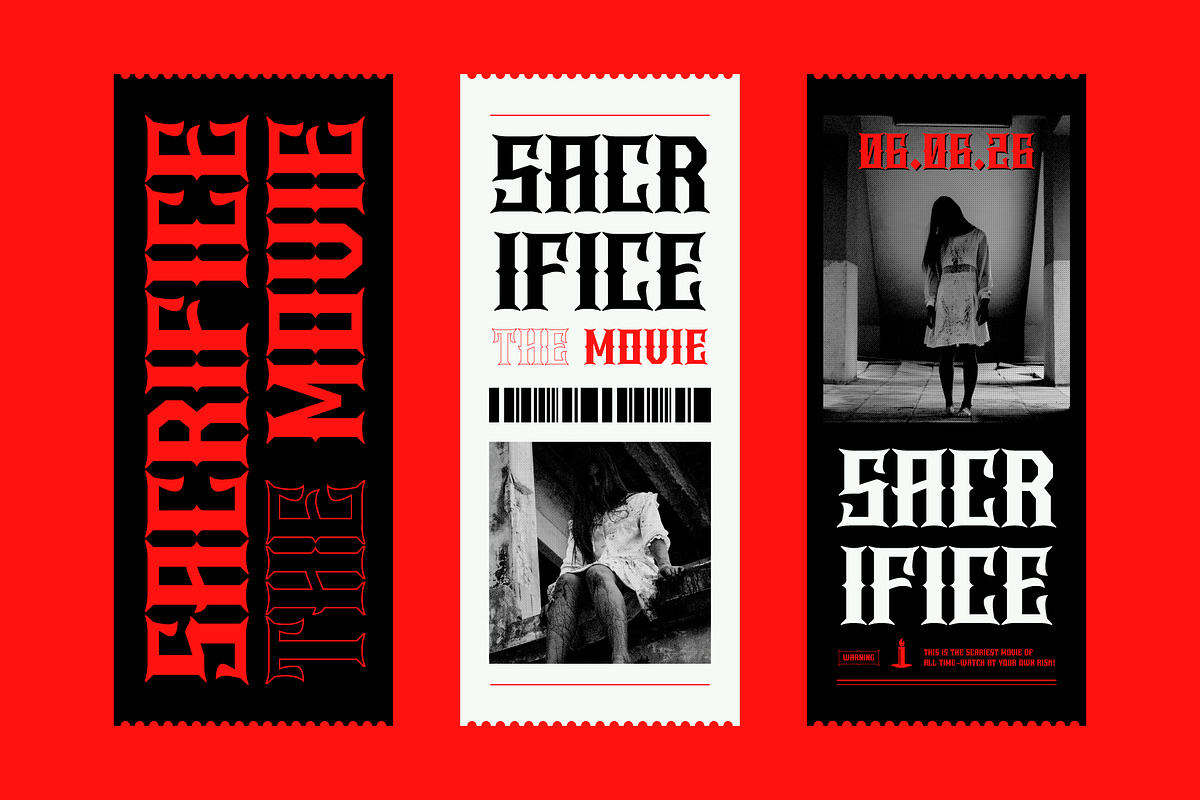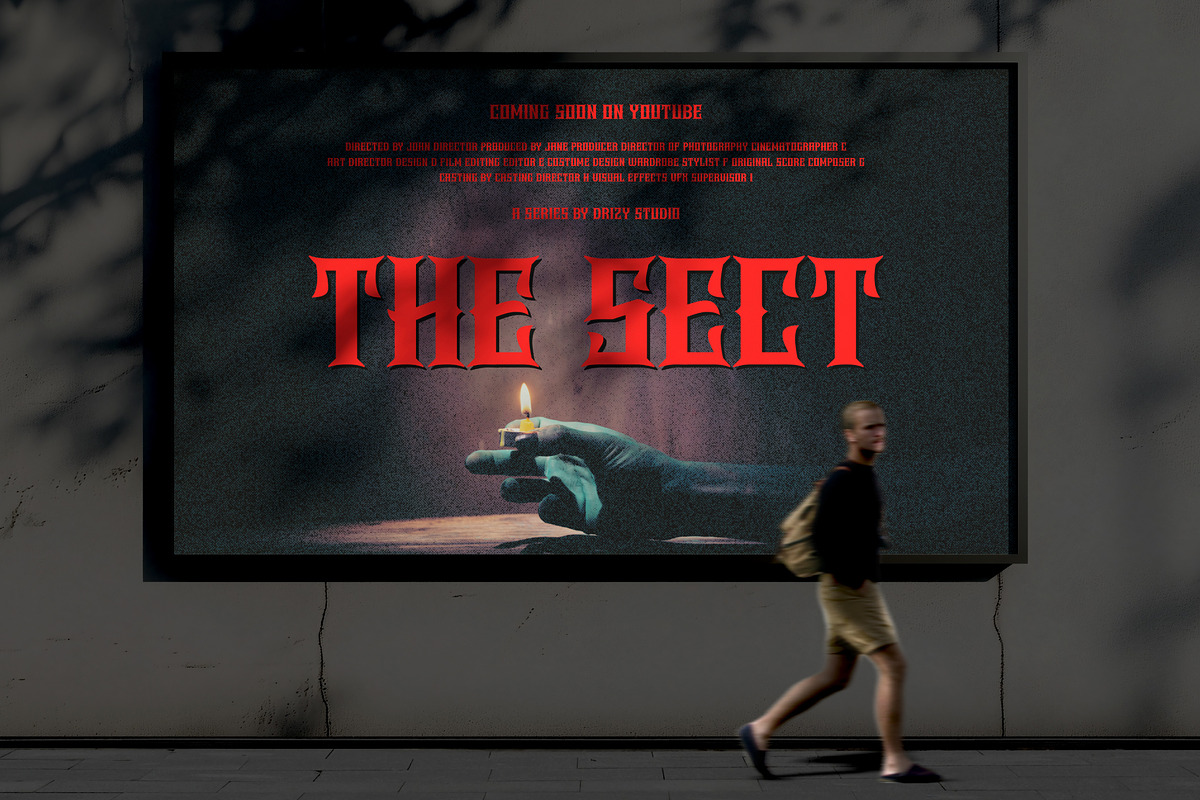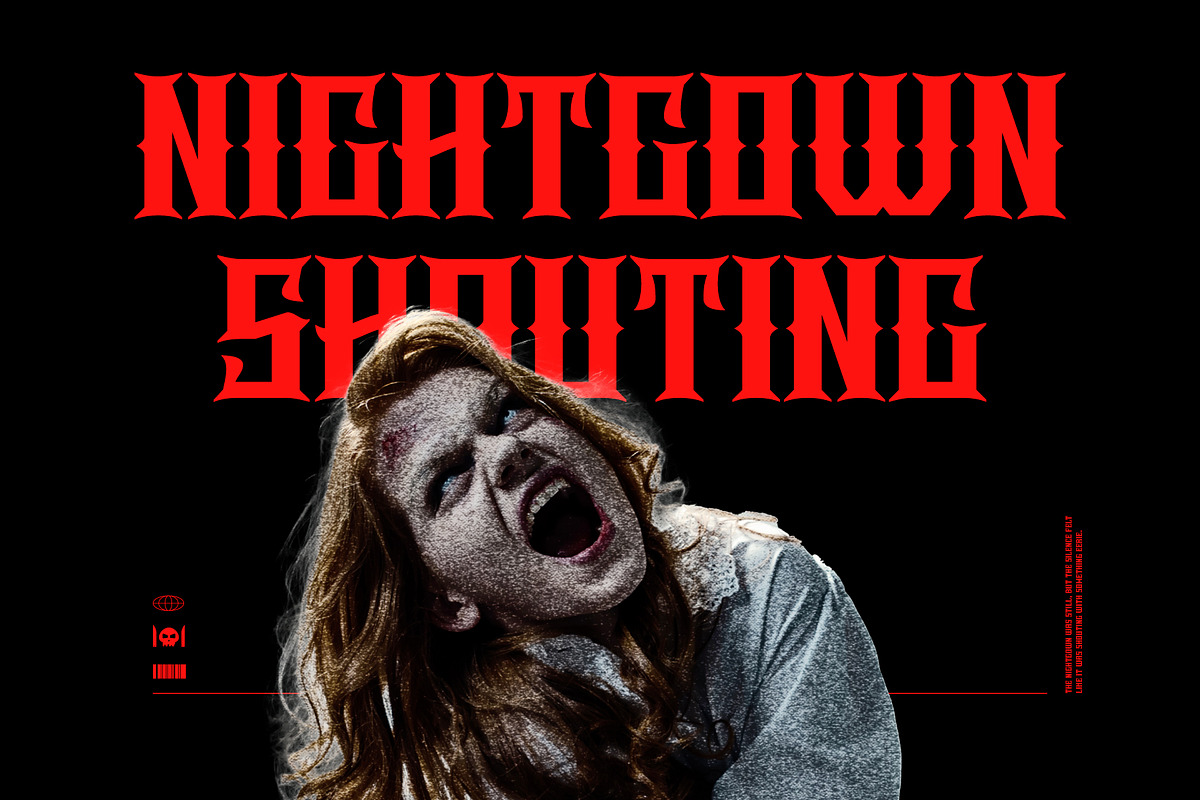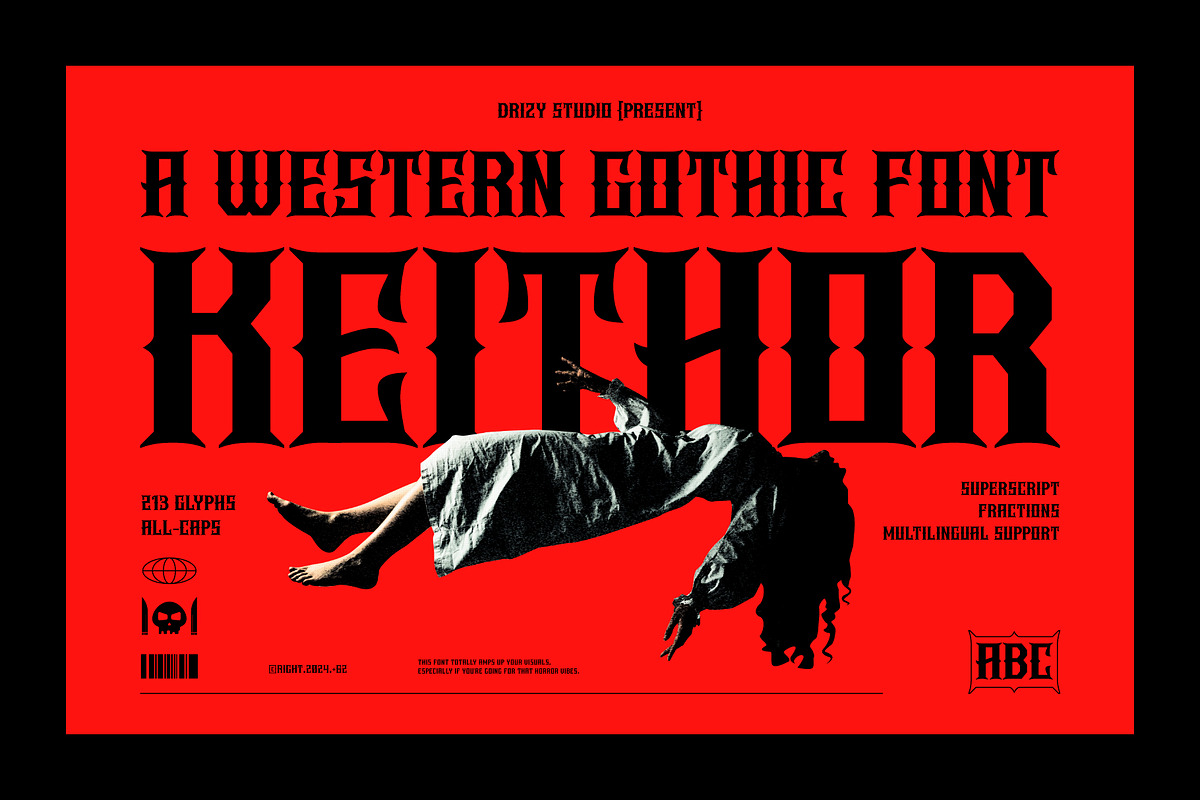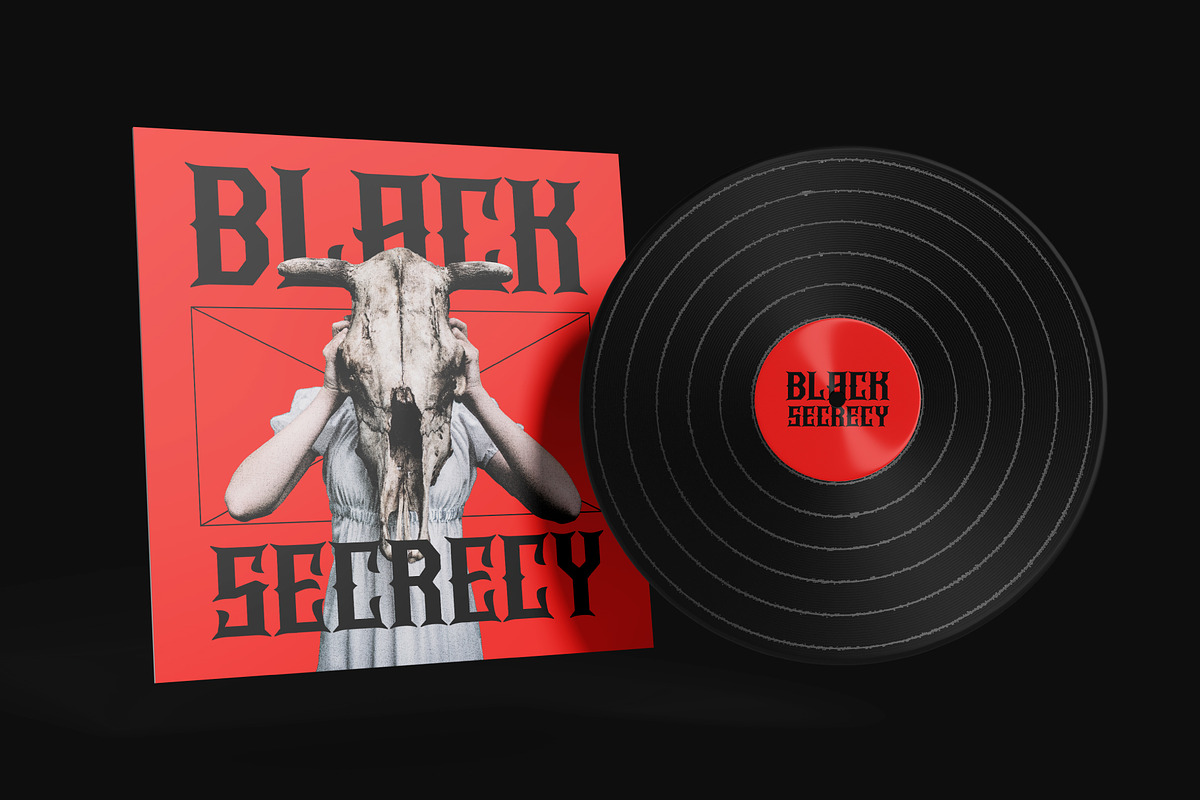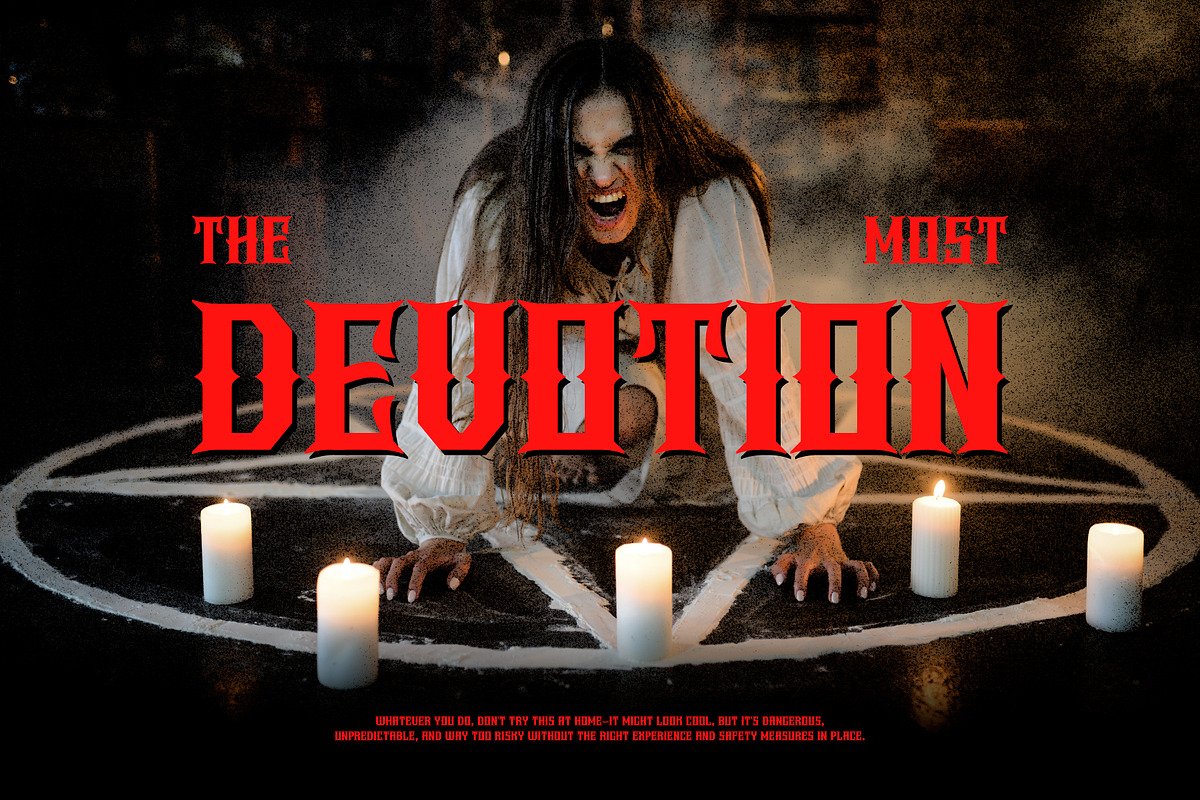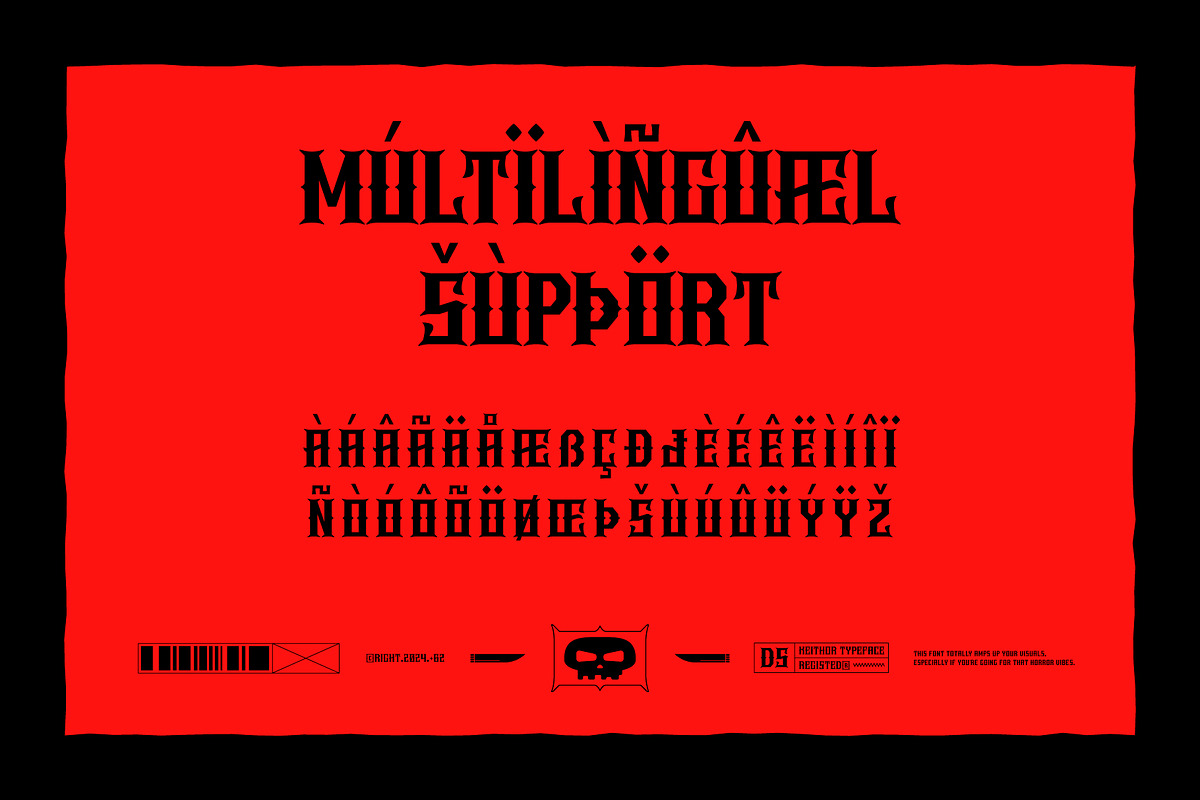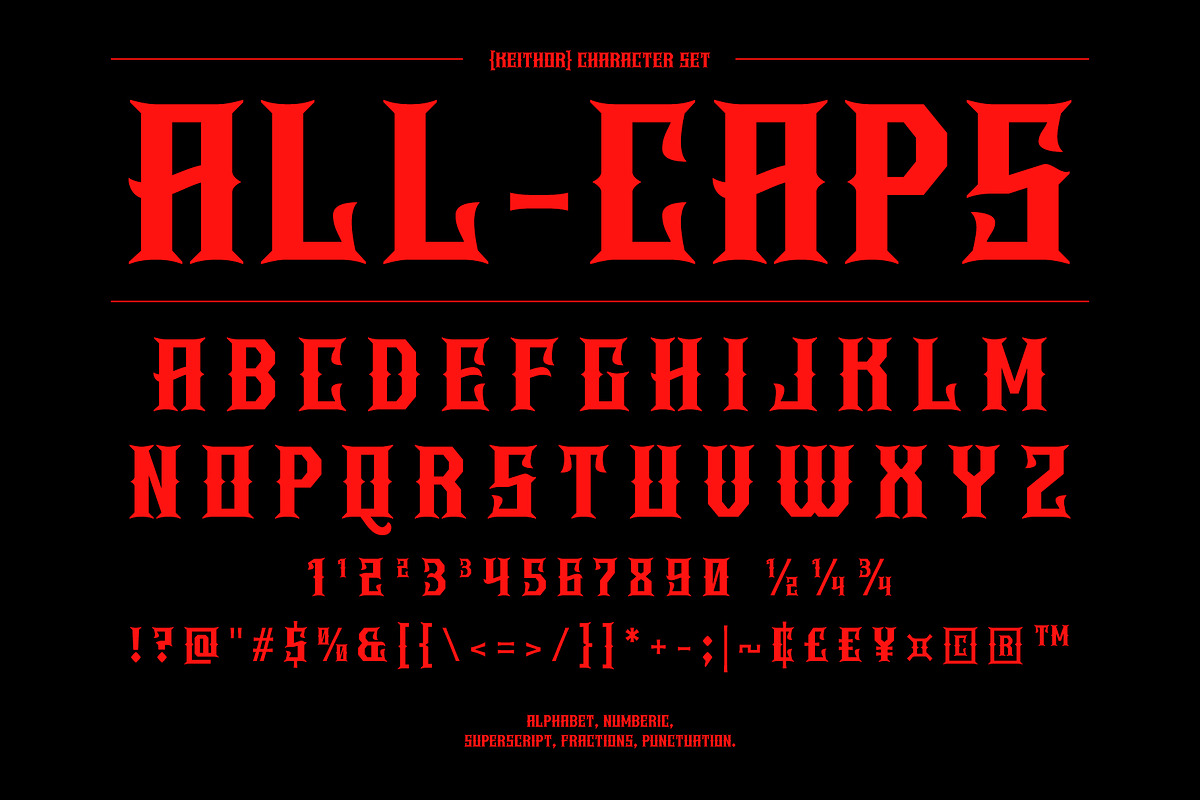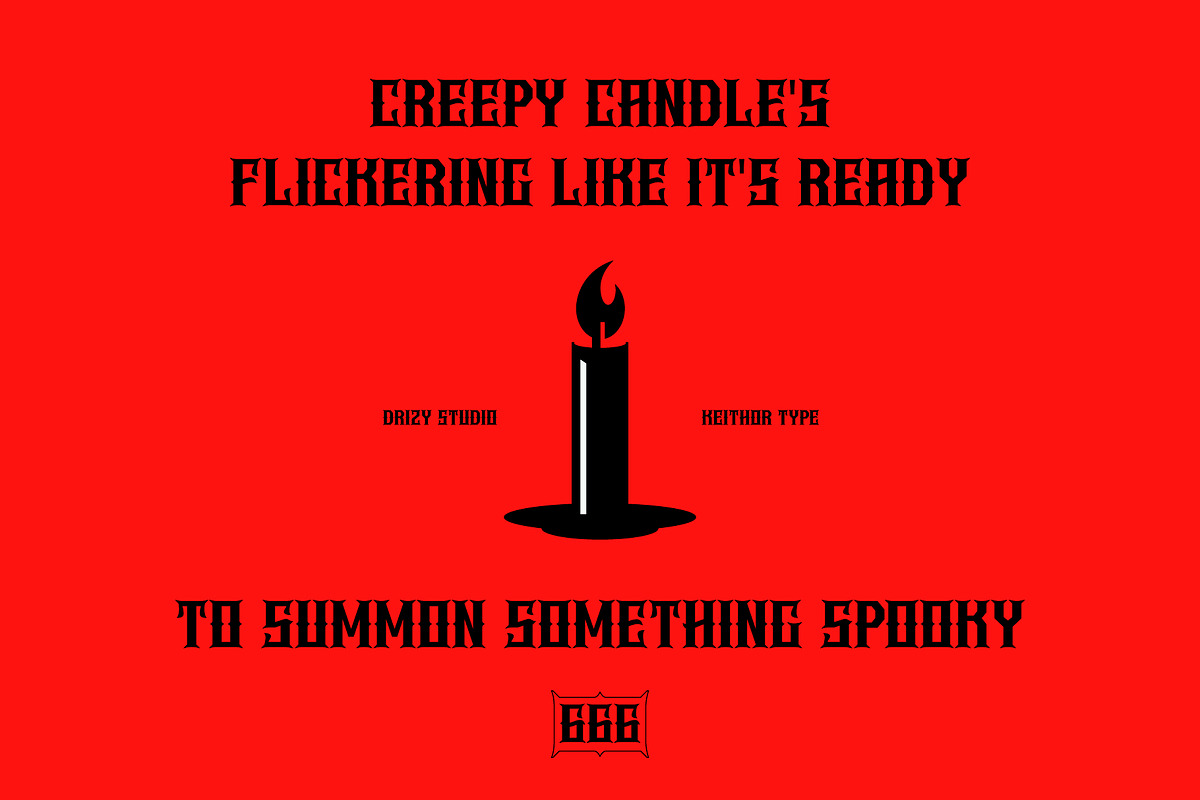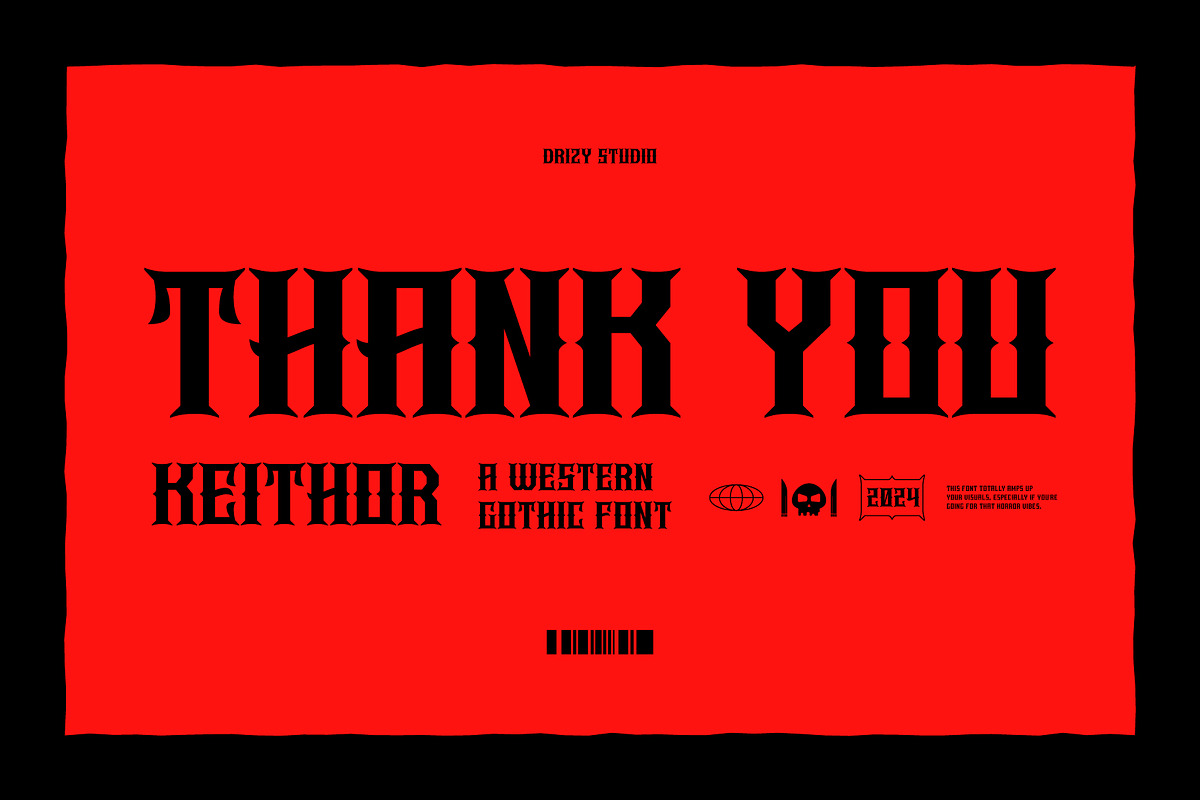
Keithor – Western Gothic Font
Keithor is a bold and haunting typeface perfect for all your Halloween designs. It’s rugged, vintage Western style blends seamlessly with dark, gothic elements, creating a spooky yet sophisticated look. Ideal for posters, invitations, or eerie merchandise, Keithor captures the mysterious and wild essence of the Halloween season. With its sharp edges and distressed strokes, this font will elevate any design, adding a chilling atmosphere that will send shivers down your spine. Unleash your creativity with Keithor and embrace the eerie spirit of Halloween!
Keithor features:
- Character Set (All Caps)
- Punctuation & Numbers
Elevate and explore the design possibilities with this Halloween Design Font!